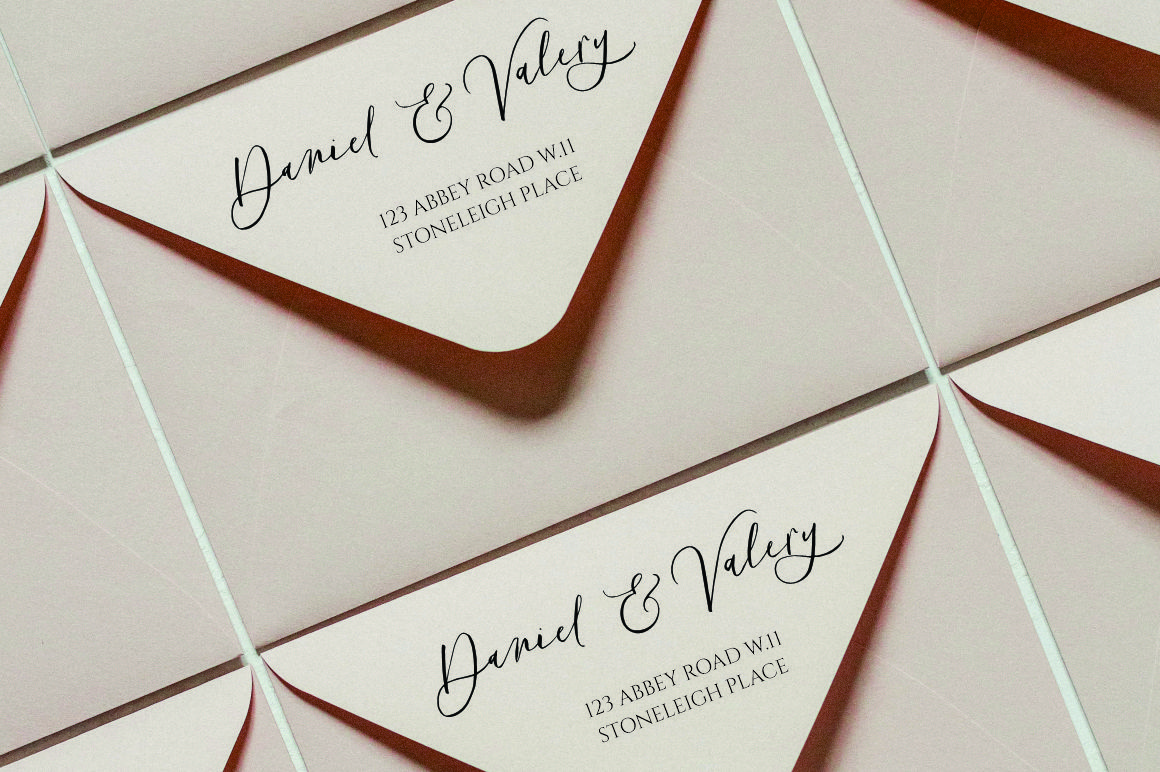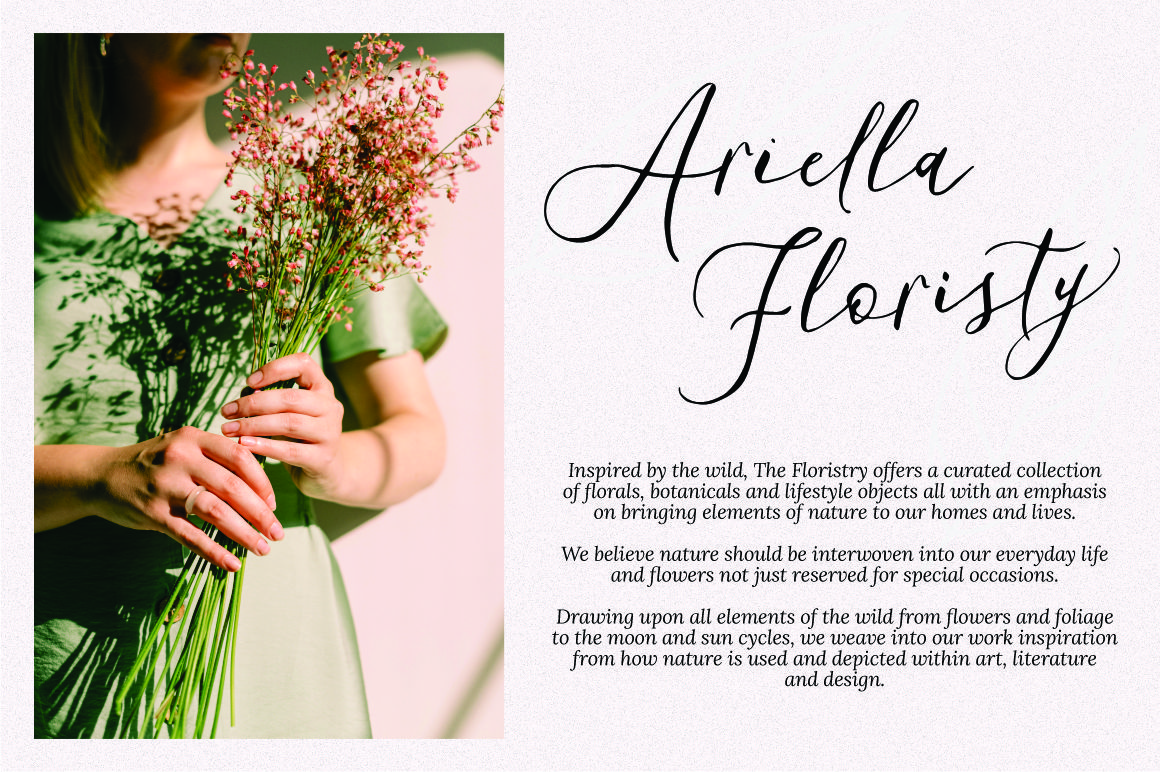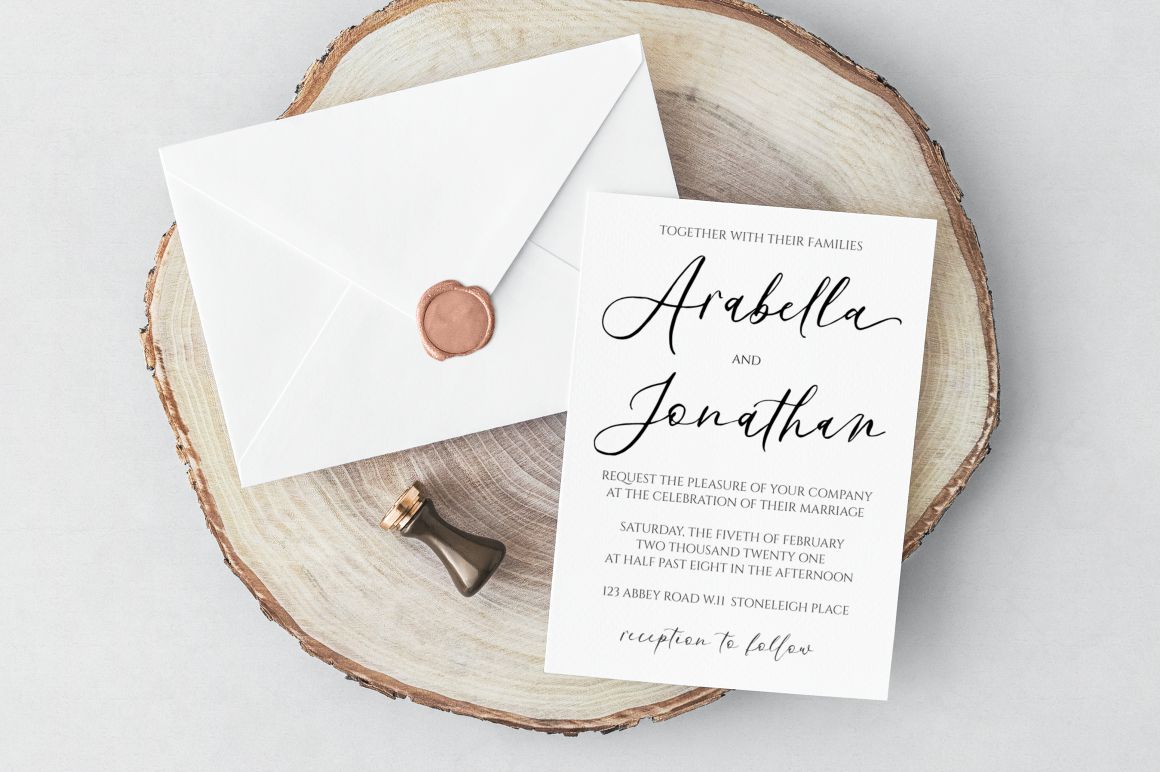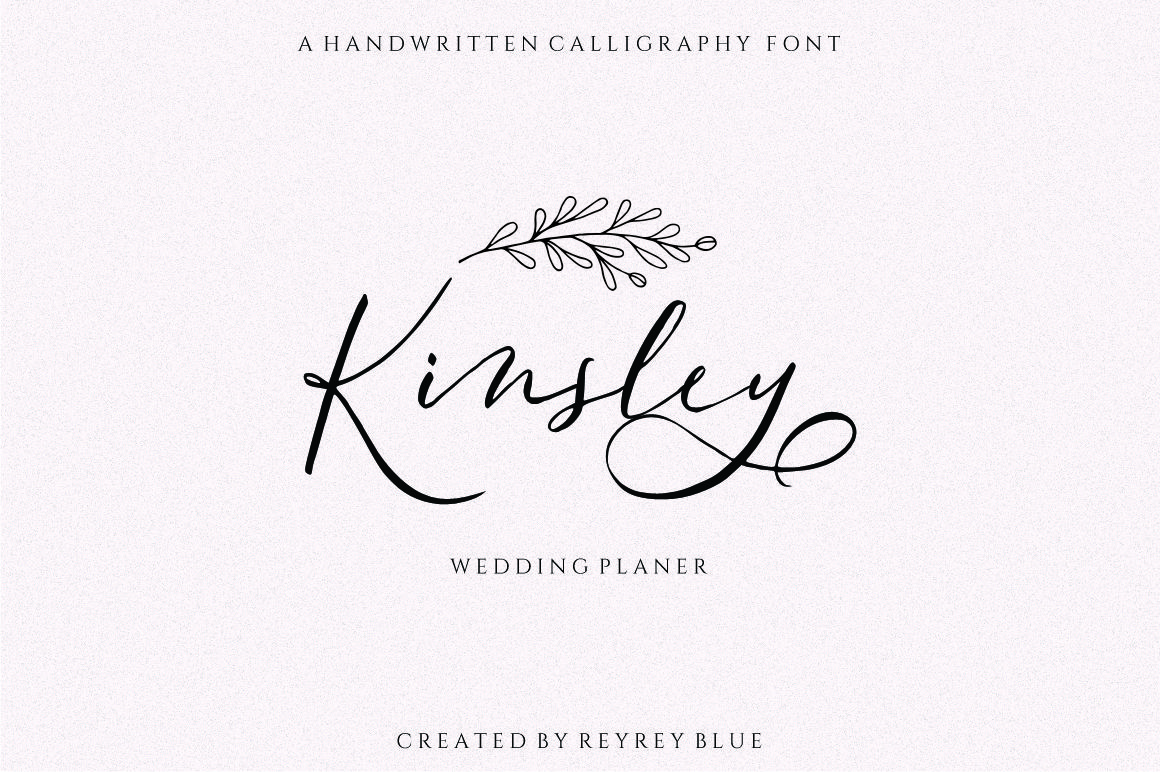
Paisleigh Script Font
This is a delicate, elegant and flowing handwritten font. It has a beauty feel that will turn any crafting idea into a true standout.
‘Paisleighis’ perfectly suited to logos, branding projects, homeware designs, product packaging, mugs, quotes, posters, shopping bags, t-shirts, book covers, name card, invitation cards, greeting cards, label, photography, watermark, special events, and all your other lovely projects that need a beautiful script taste.